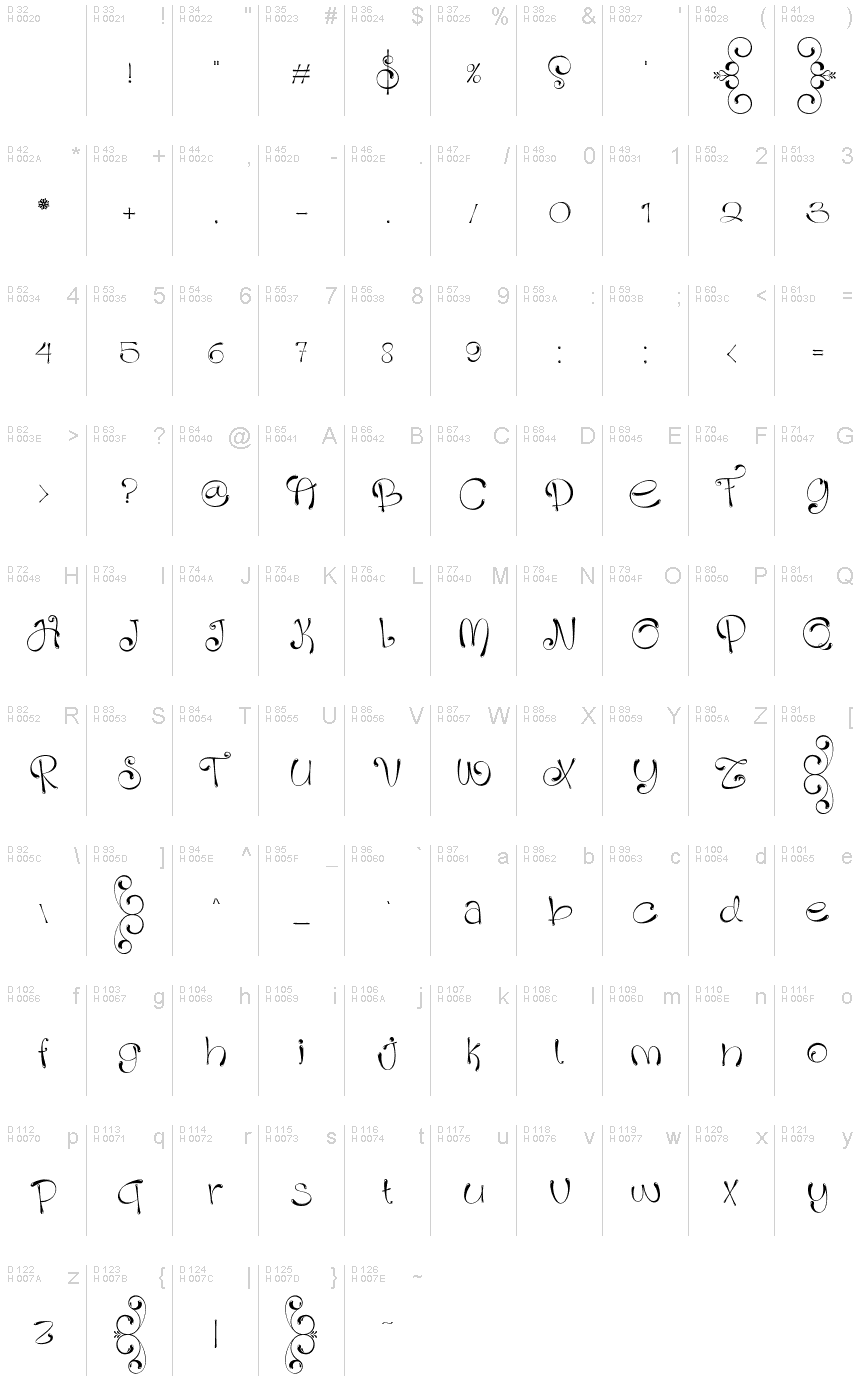
Holin Jusi Regular
Meet Holin Jusi, the stunning calligraphy font designed by Jehan Syah. Its semi-light weight adds just the right touch of elegance to any project, making it suitable for a variety of uses. From wedding invitations and event flyers to branding materials and social media graphics, Holin Jusi adds a touch of sophistication that will make your designs stand out. The flowing curves and intricate details of this typeface are sure to captivate your audience and leave a lasting impression. Elevate your designs with Holin Jusi today!